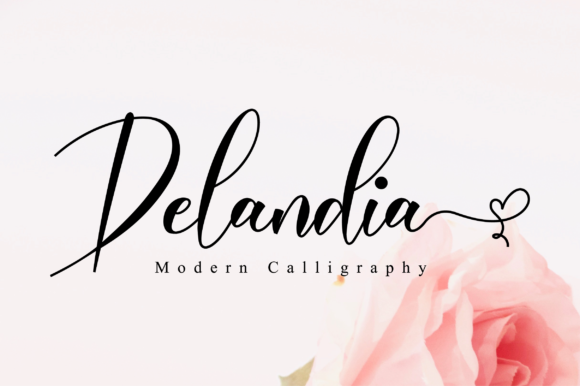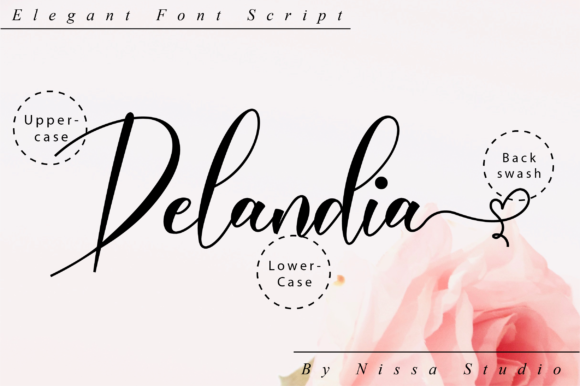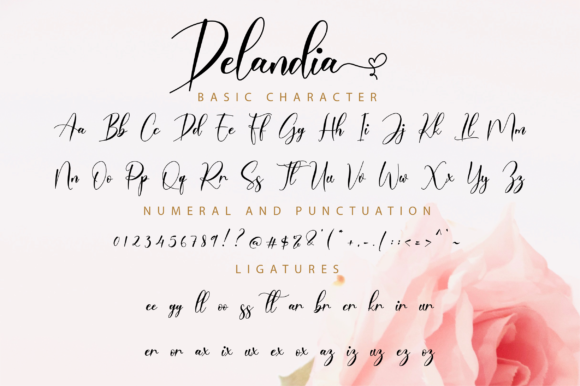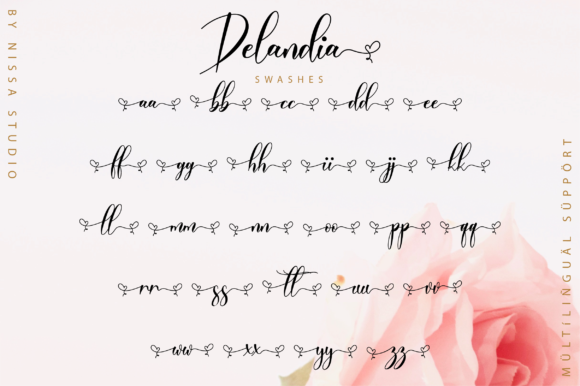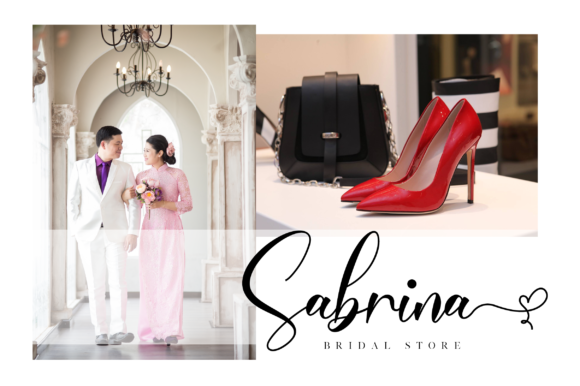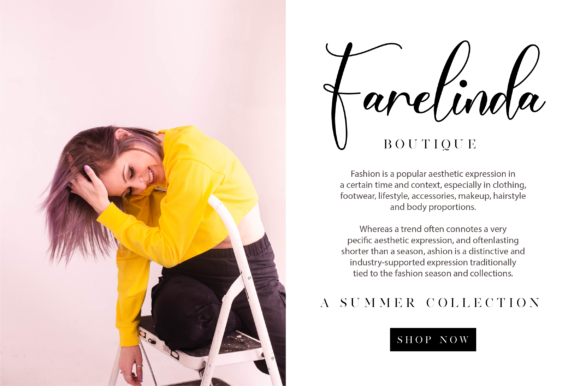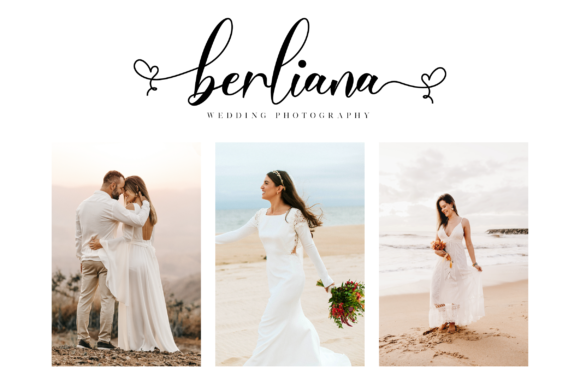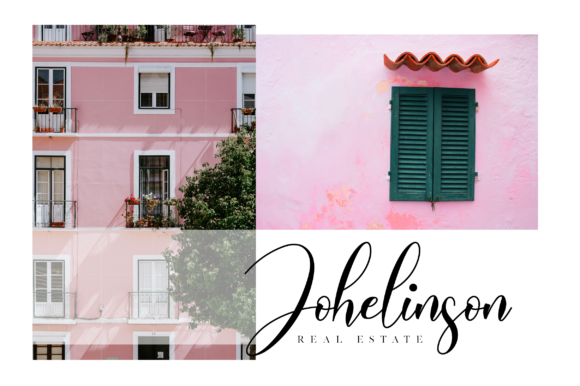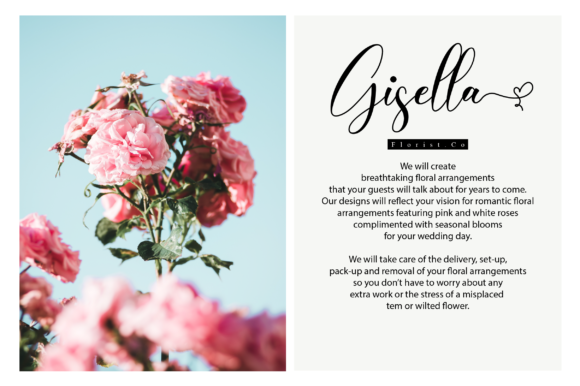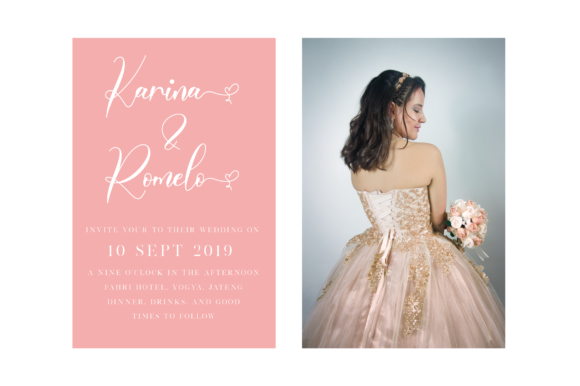
Delandia Font
About Delandia Font
Delandia is a beautiful script font featuring cute hearts in its swashes. Its classy and elegant look makes it perfect for logos, branding, invitations, stationary, wedding designs and social media posts.